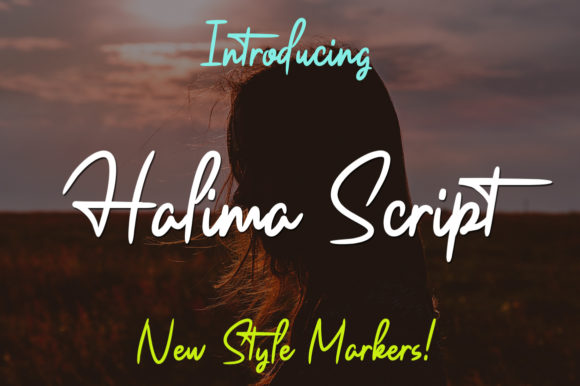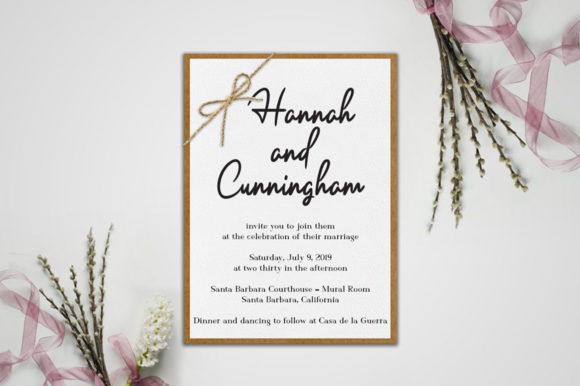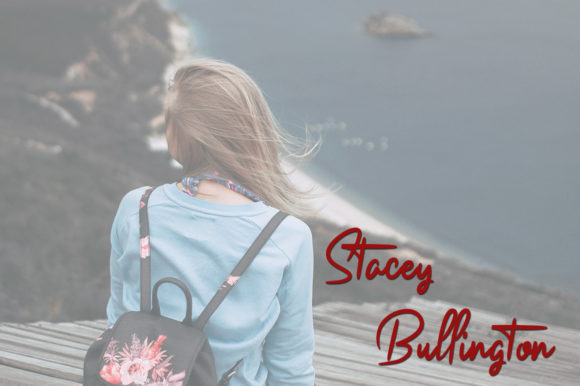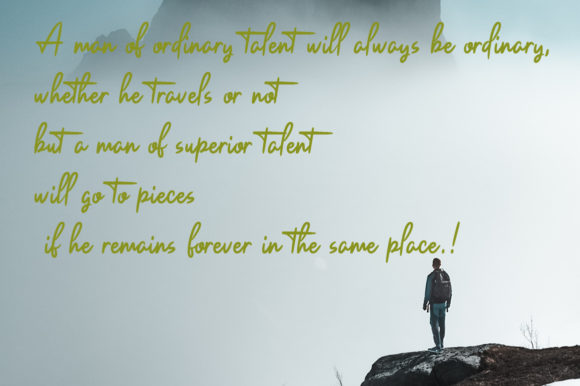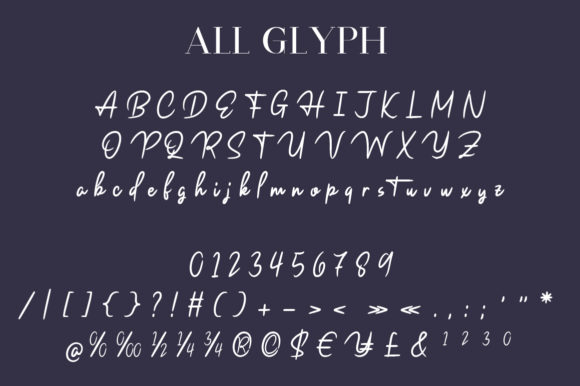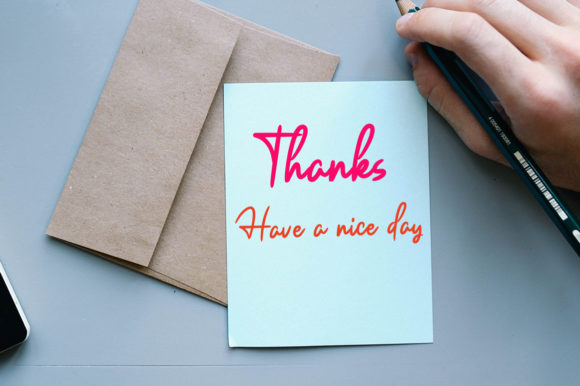
HomeScript FontsHalima Script Font Script Fonts Halima Script Font FacebookXPinterestWhatsApp Halima Script Font Poster 2 Halima Script Font Poster 3 Halima Script Font Poster 4 Halima Script Font Poster 5 Halima Script Font Poster 6 About Halima Script Font Halima is a classic handwritten font with a modern feel. It will add a personal charm to any design project! DOWNLOAD ON CREATIVE FABRICAThis font is sold and delivered by Creative Fabrica. Font Canyon may earn a commission if you buy through this link. People also explored Habel Font Soccer Font Adhynatha Font Pororo Font Rahiga Adrilina Font Pretty Beauty Font Ricotta Stregata Font Coconut Font Caramel Latte Font 291 0 TagsHalima Script Font Previous articleAntonio Santai FontNext articleFairies in the Forest Font LEAVE A REPLY Cancel reply Comment: Please enter your comment! Name:* Please enter your name here Email:* You have entered an incorrect email address! Please enter your email address here Website: Save my name, email, and website in this browser for the next time I comment. Personal Use Free Handayani Personal Use Free Read more about this font BD Beans Personal Use Free Read more about this font Pasile Personal Use Free Read more about this font Cuttering Personal Use Free Read more about this font BLOG Best Fonts for T-Shirt Design – Top 2025 Picks In 2025, t-shirt design has become more than just fashion—it's a form of self-expression. Whether you're... Transform Your Website: Elevate Your Typography with 7 Best Web Font Generators Fonts That Capture the Spirit of New York City Elegant Wedding Invitation Fonts – Handwritten & Script Fonts